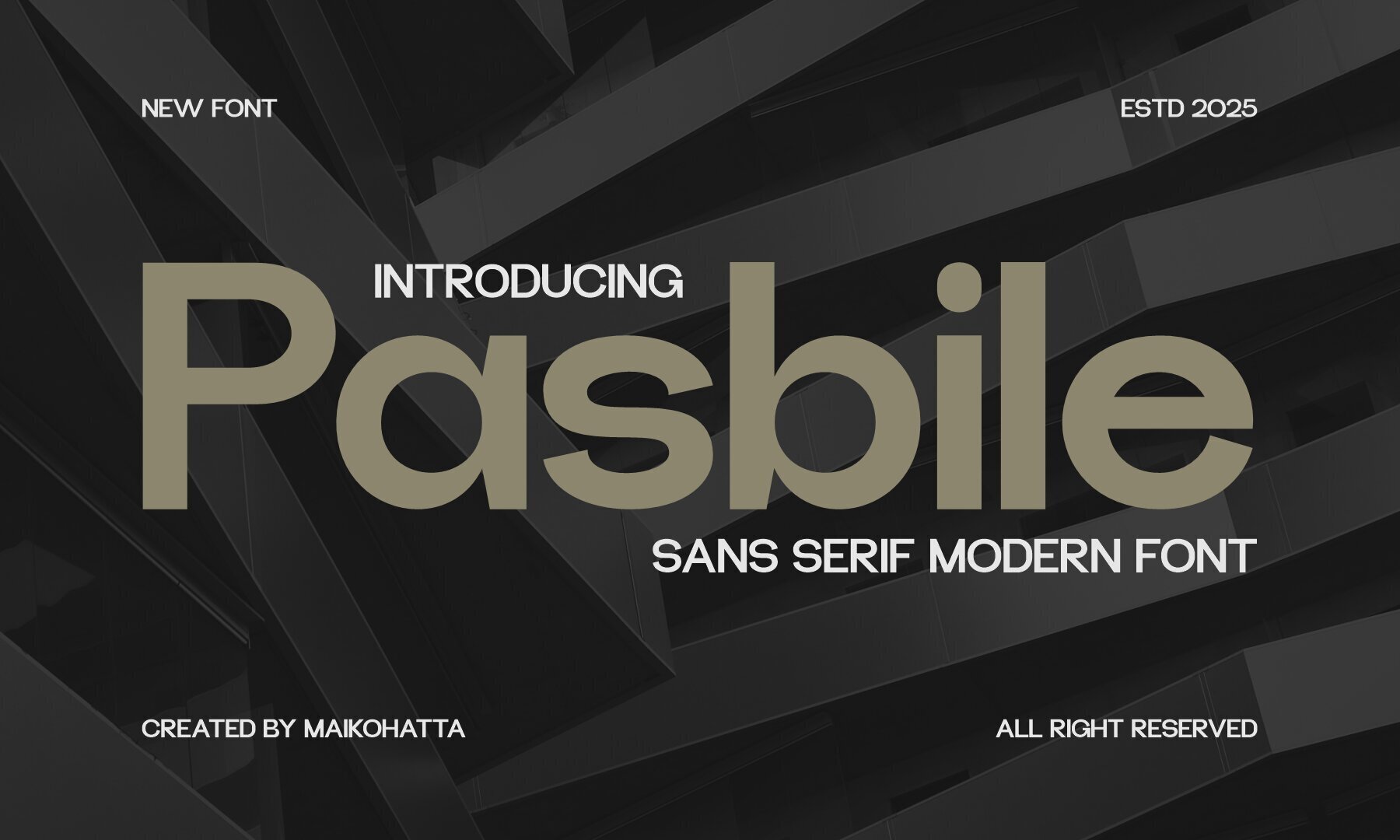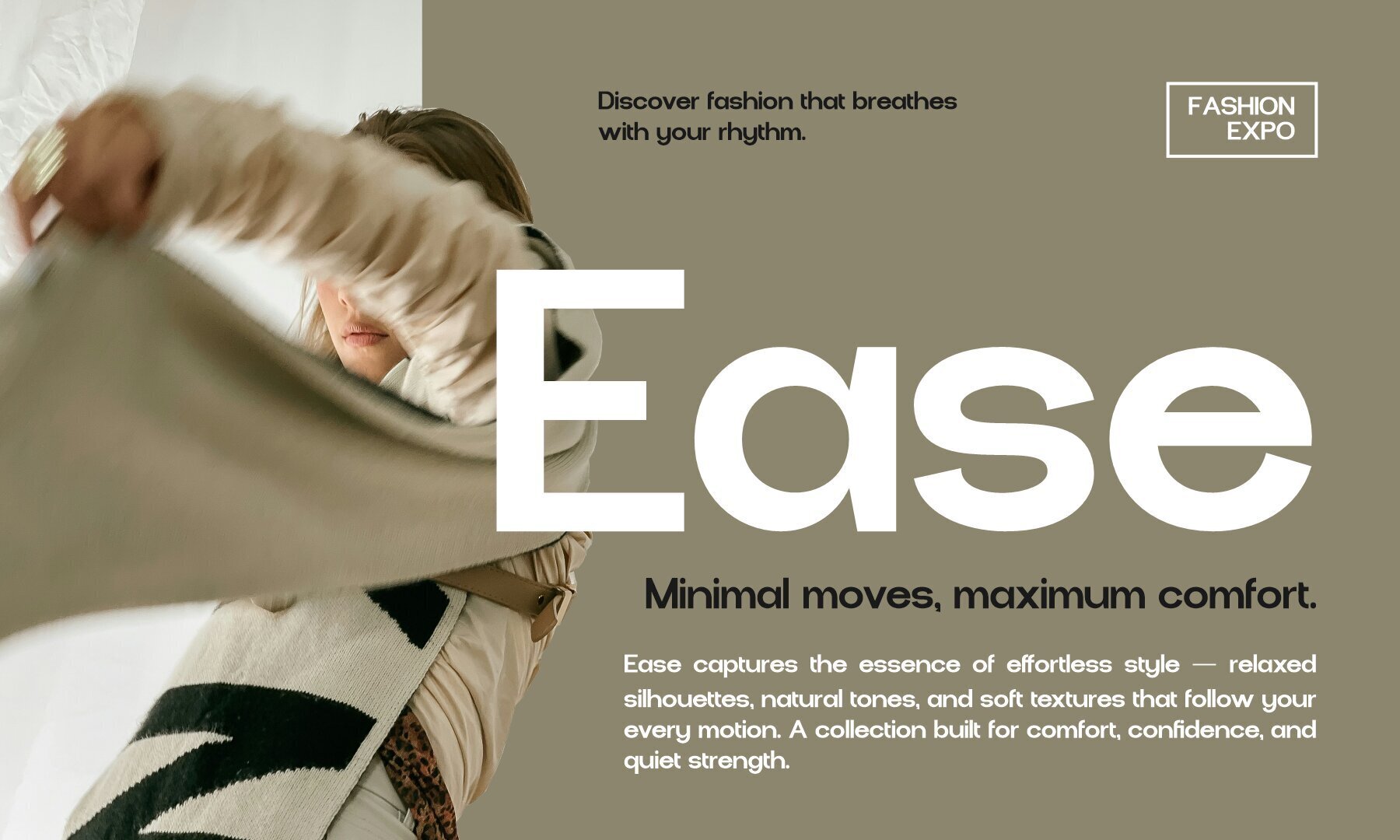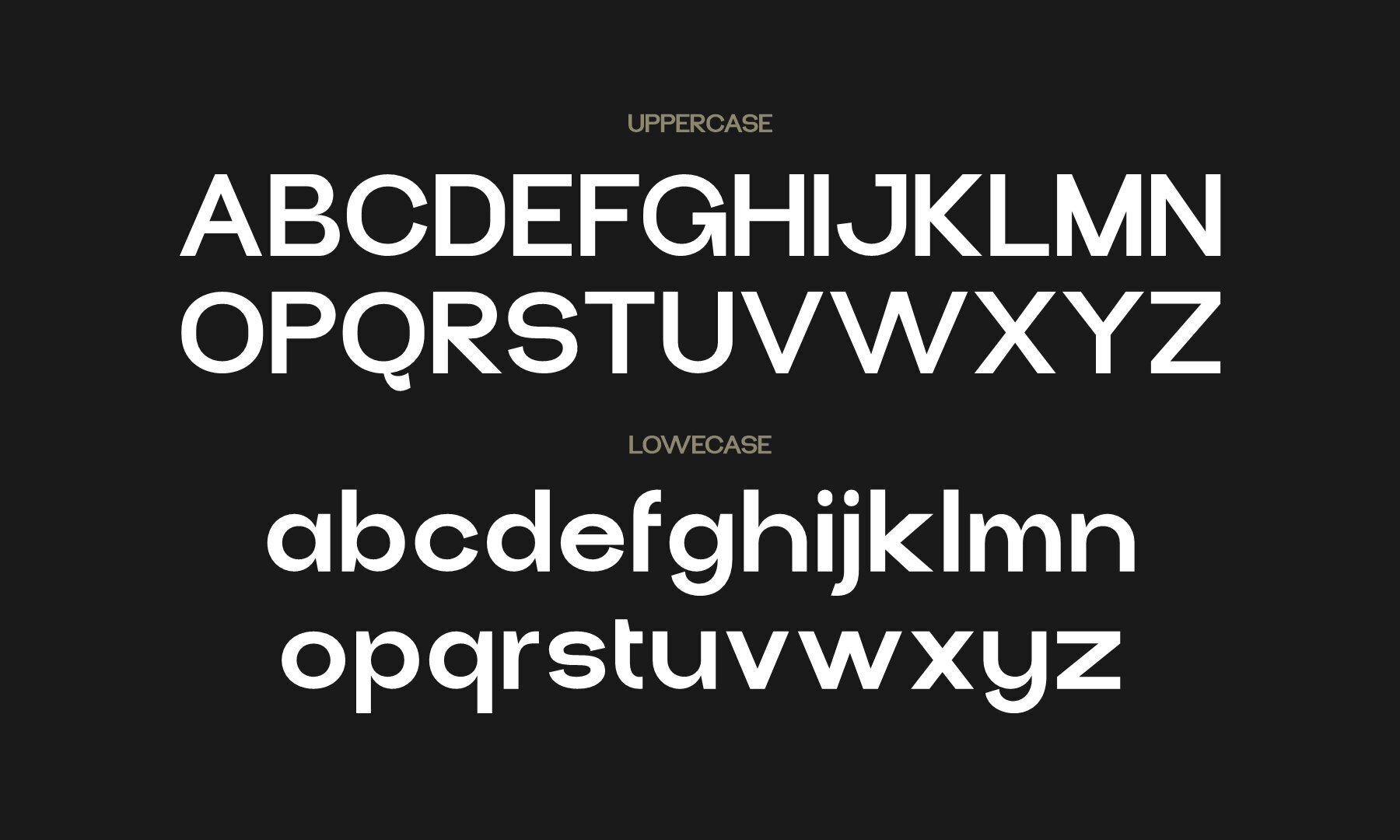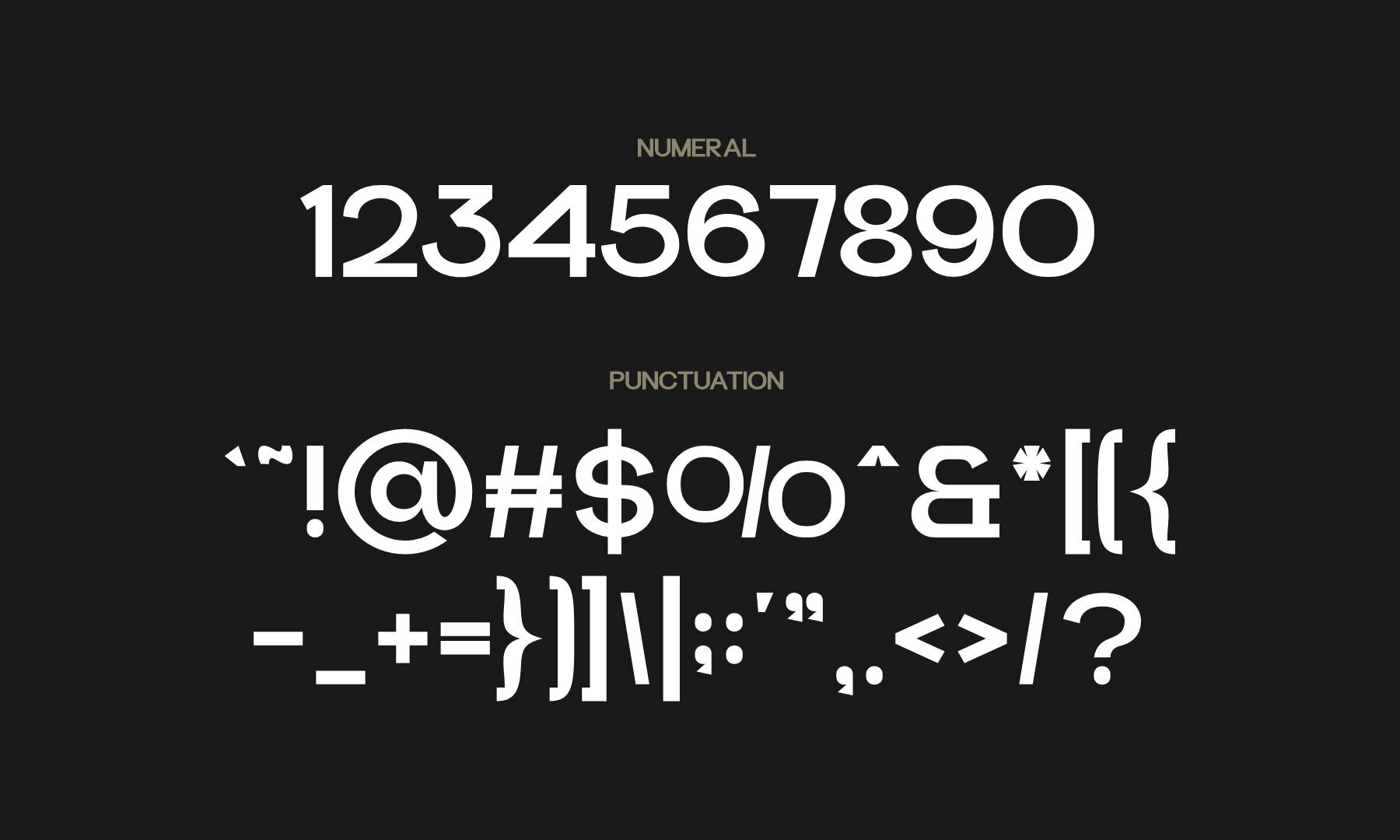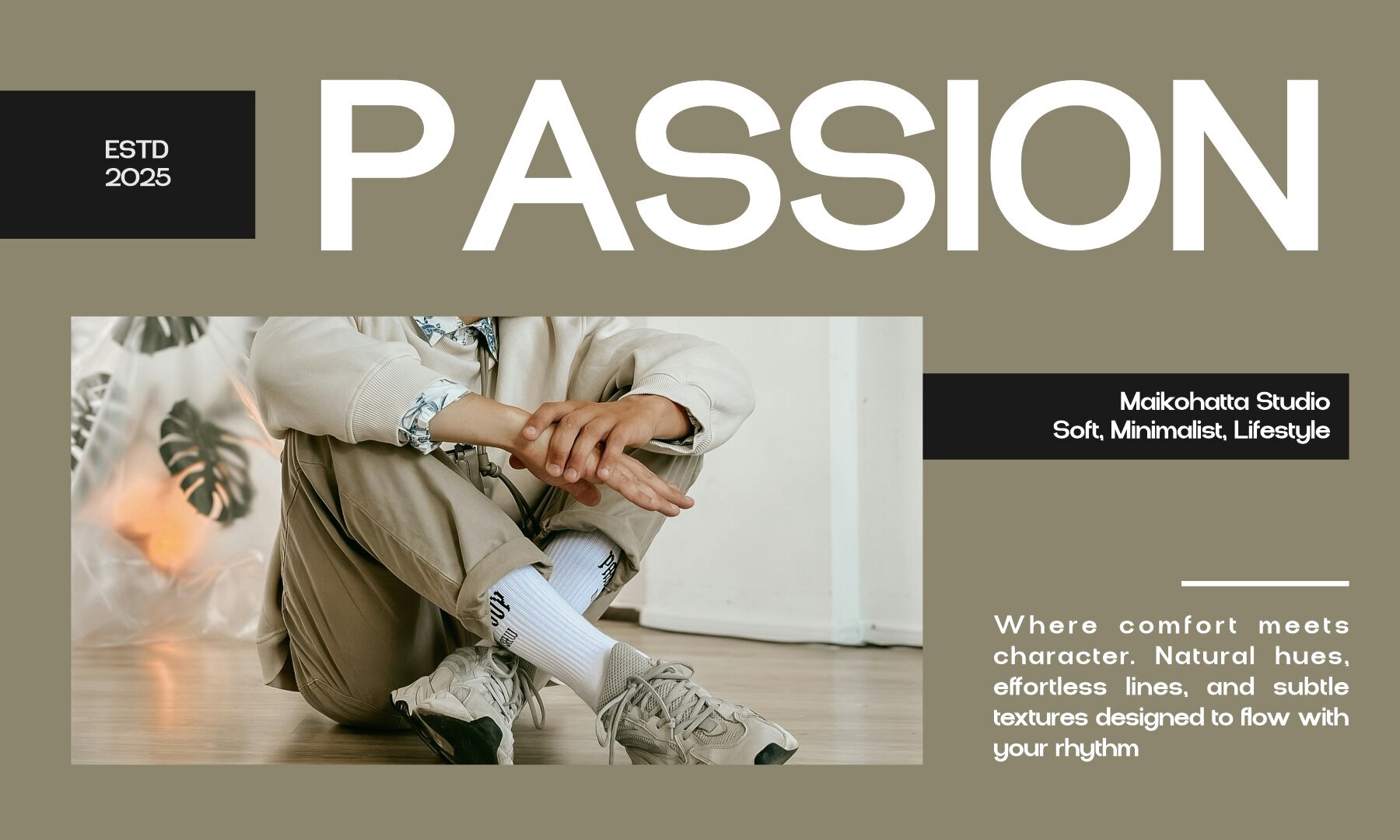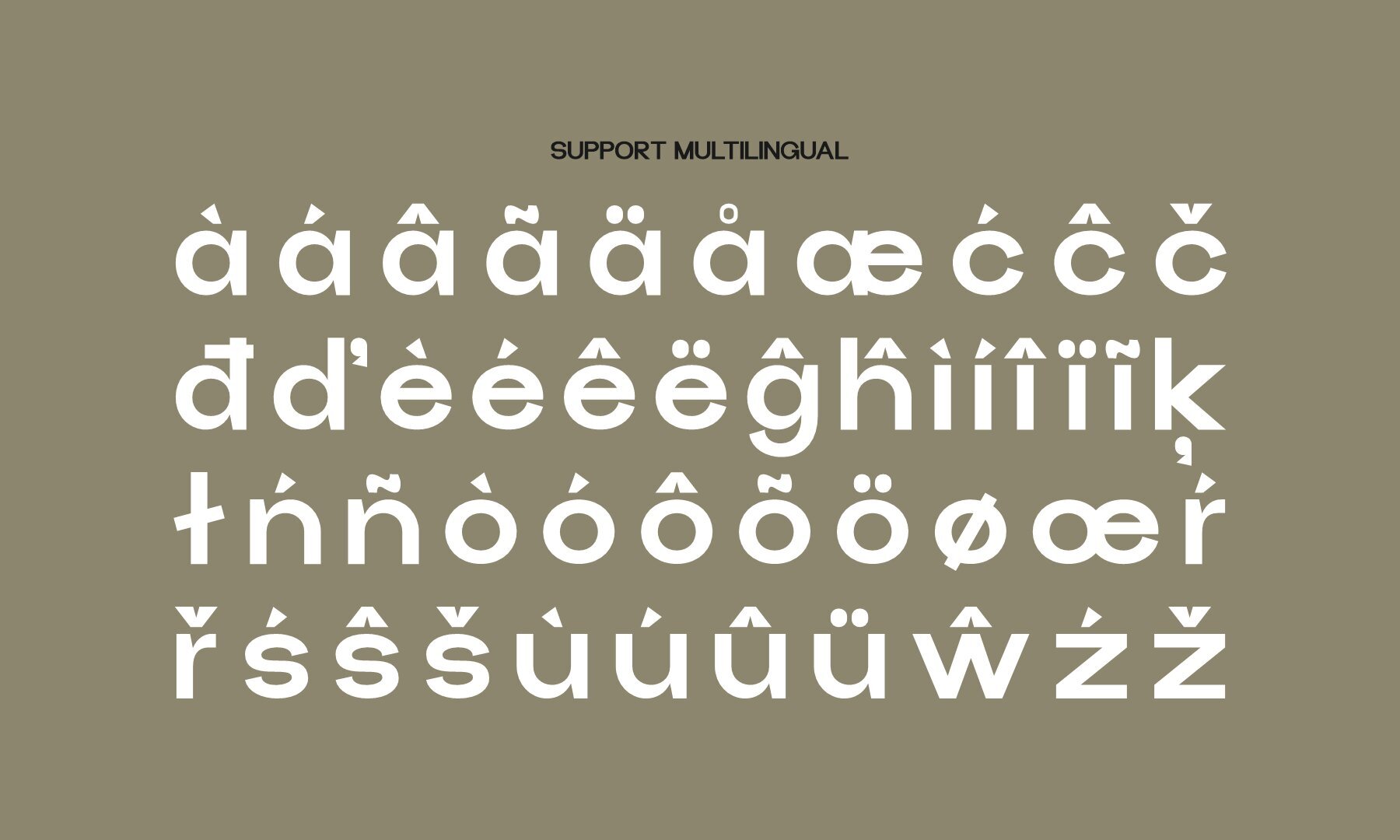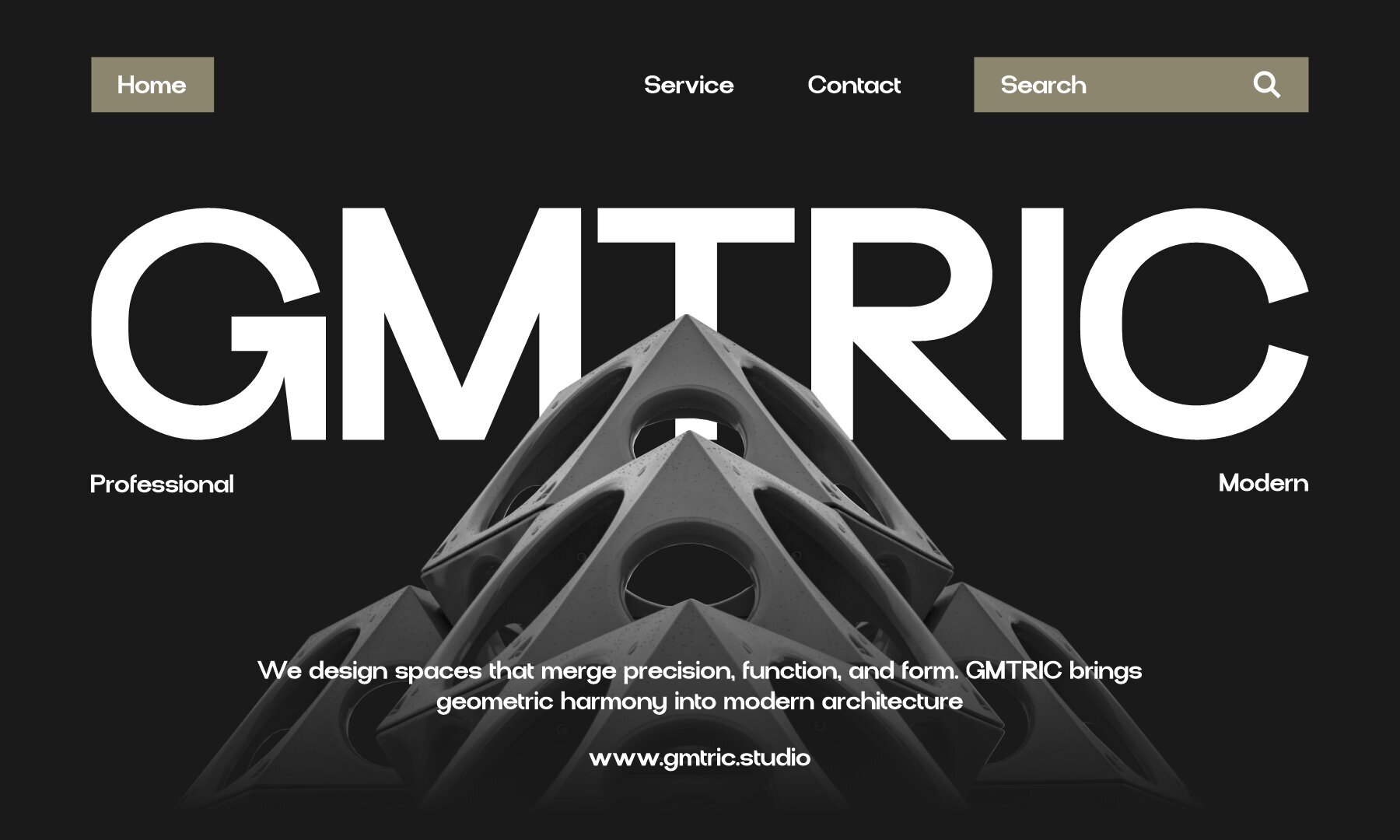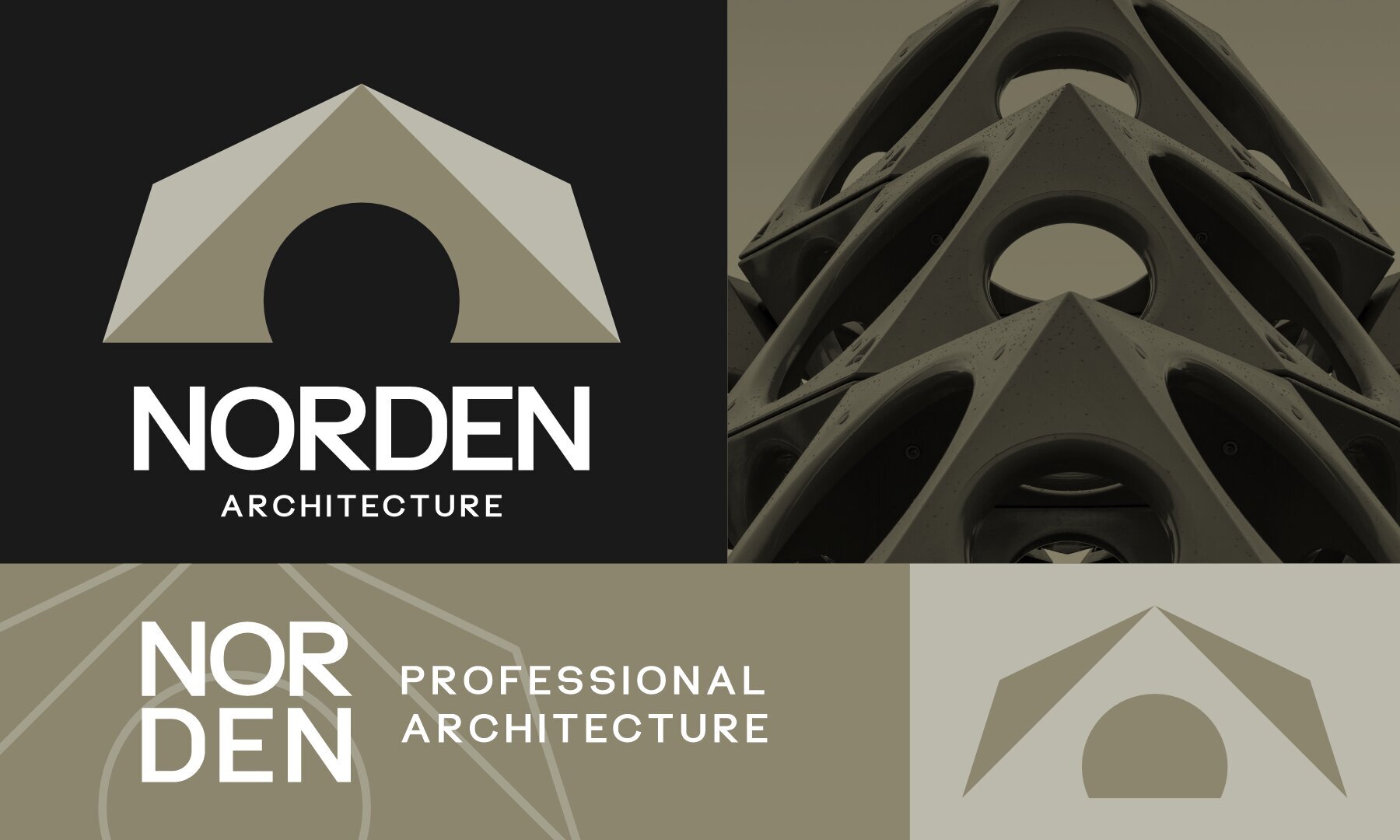
Pasbile Font
Pasbile
Pasbile stands out through its geometric clarity and contemporary minimalism. Defined by clean letterforms and balanced proportions, this sans serif font brings a distinctive sophistication to branding, editorial design, and user interfaces. Smooth curves and thoughtful spacing ensure legibility and a polished aesthetic, allowing Pasbile to work equally well for display headlines and extended text. Designed for visuals requiring a modern and professional character—logos, posters, packaging, and digital spaces—Pasbile supplies both strength and elegance. The precise construction fosters a refined visual identity, while its versatility supports a wide range of creative applications. Features:Pasbile: Confident Sans Serif With Geometric Precision